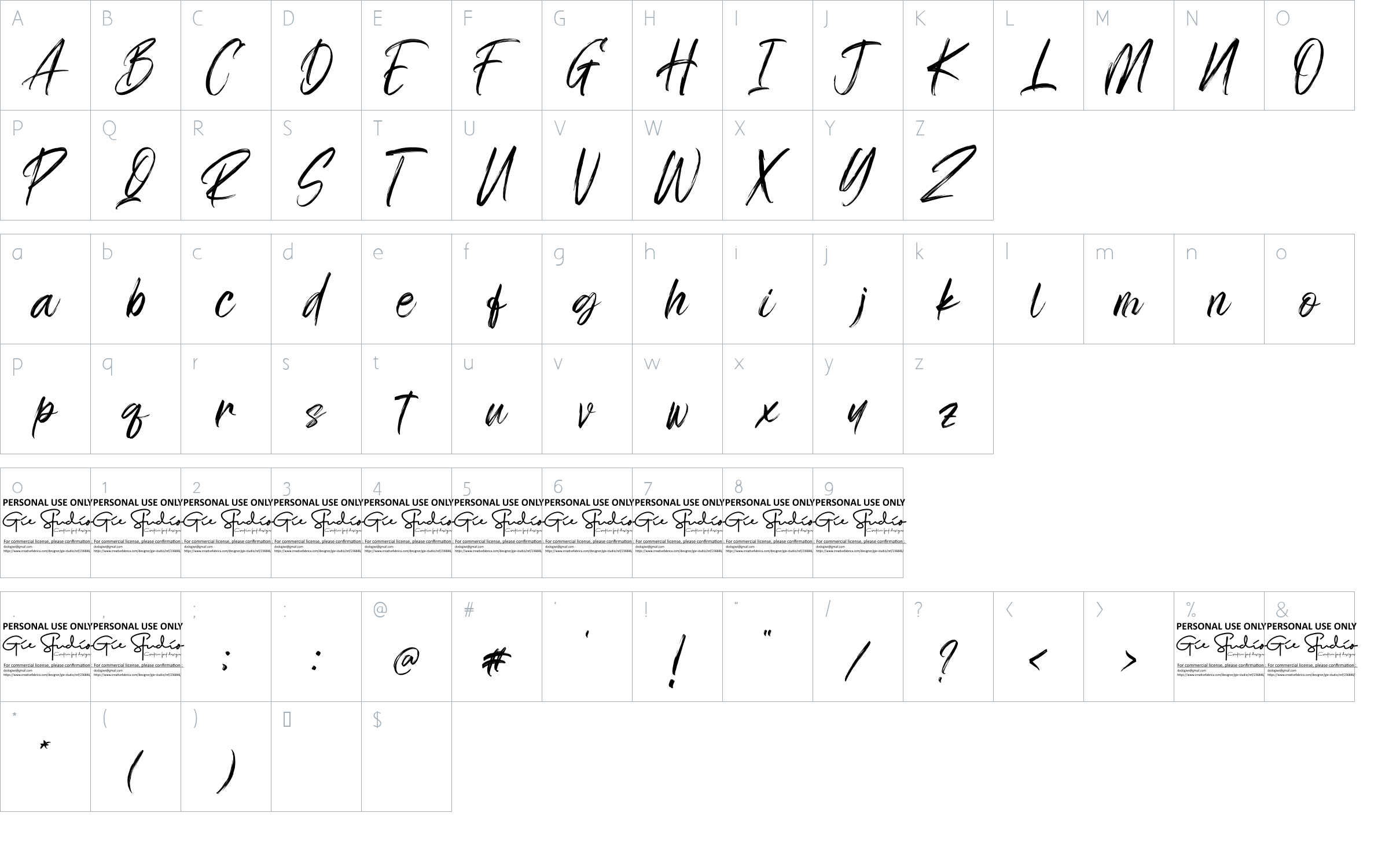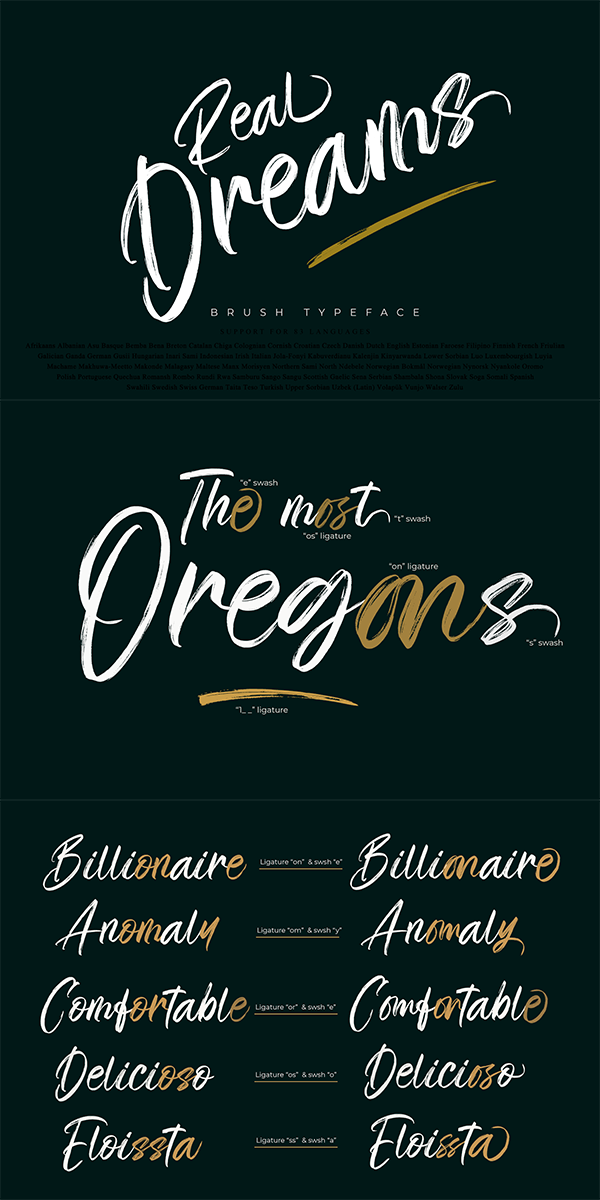
Real Dreams Font
Designed by Gie Studio
About Real Dreams
Real Dreams is a stylish and brushed handwritten font. This gentle font will look gorgeous on a variety of design ideas. It will add a joyful and romantic touch to each of your projects!
– Swash Collection
– Unique Ligatures
– Special Underline
– Multilingual Support 91 Country